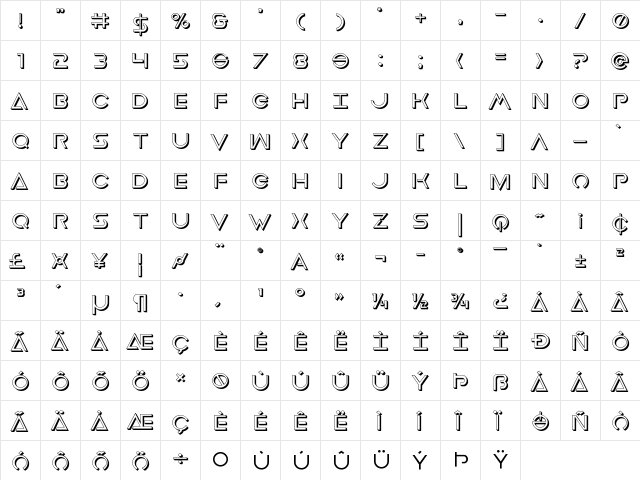
Earth Orbiter Deep 3D Regular
Design Context for Earth Orbiter Deep 3D Typeface
Earth Orbiter Deep 3D is a composed and adaptable typeface that performs quietly and consistently across a wide range of design contexts.